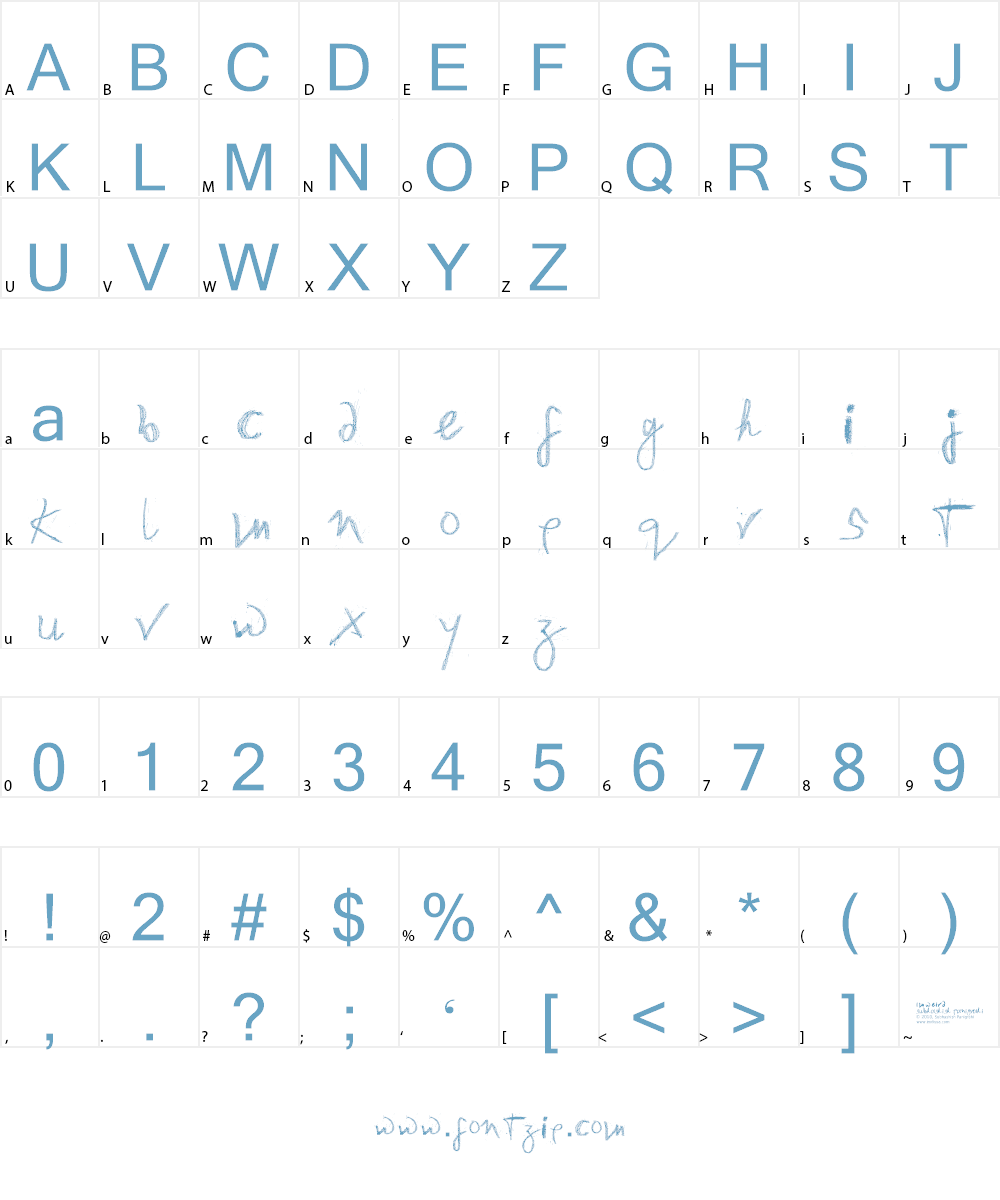
eOdissa-Majhi-Uni is the first Odia handwriting font. This is a SHAREWARE, that means you can use it only for personal purpose. YOU ARE NOT ALLOWED TO USE IT COMMERCIALLY. For a commercial license contact at